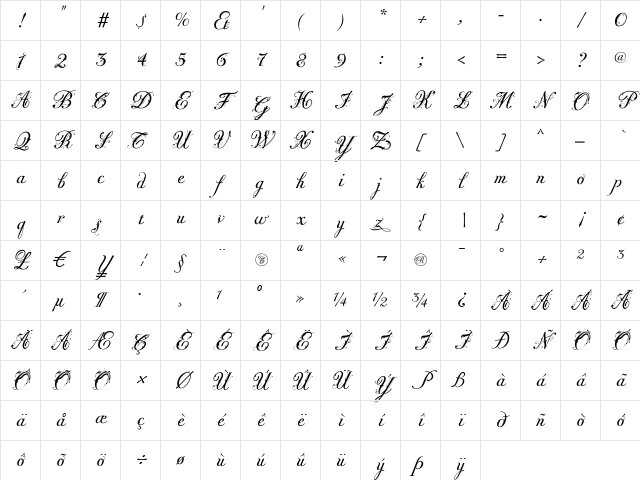
Fleurie Regular Free Font
Fleurie Regular
Fleurie Family
Fleurie Regular
Design Context for Fleurie
Fleurie is a composed and adaptable typeface that performs quietly and consistently across a wide range of design contexts.